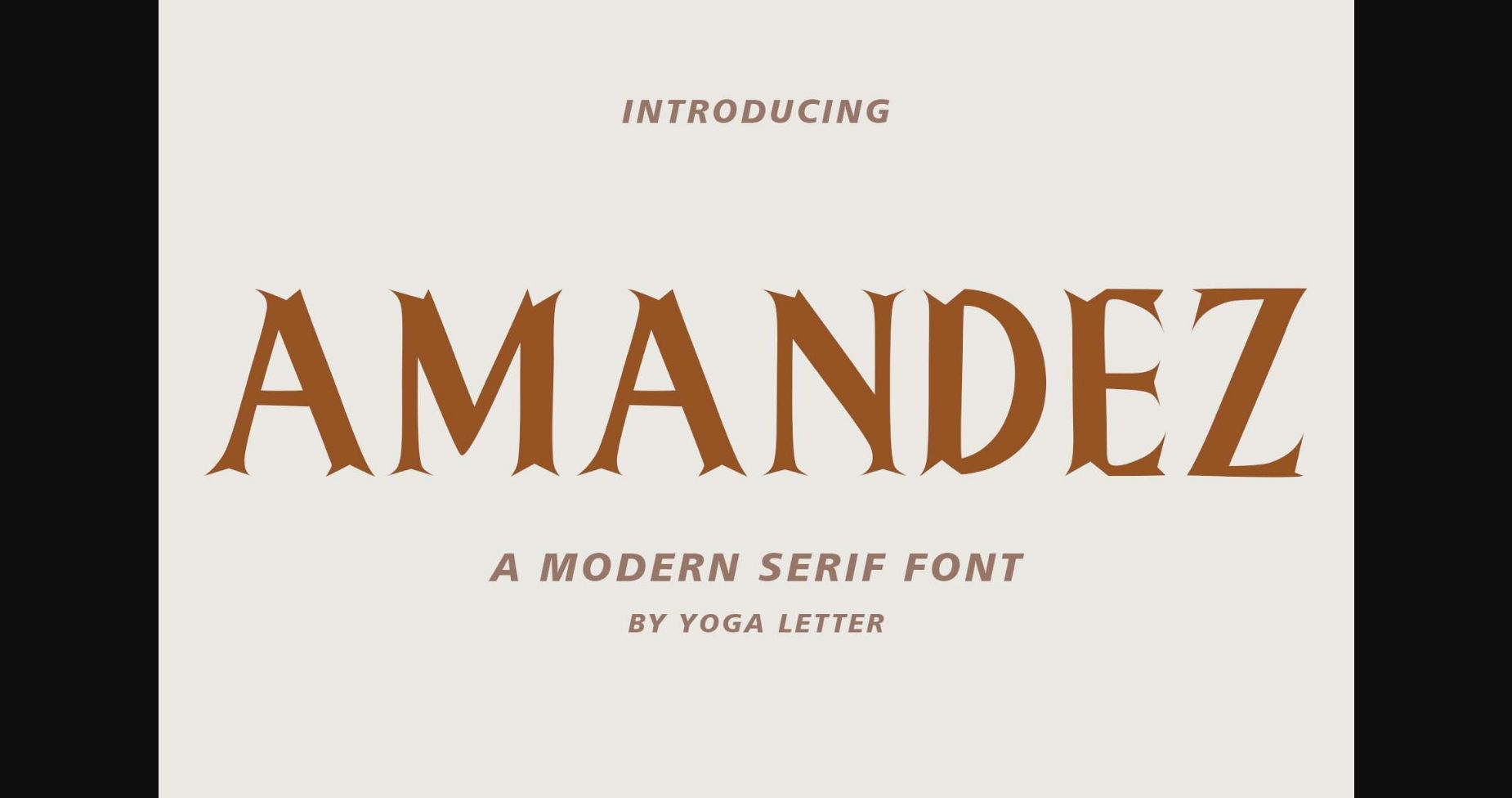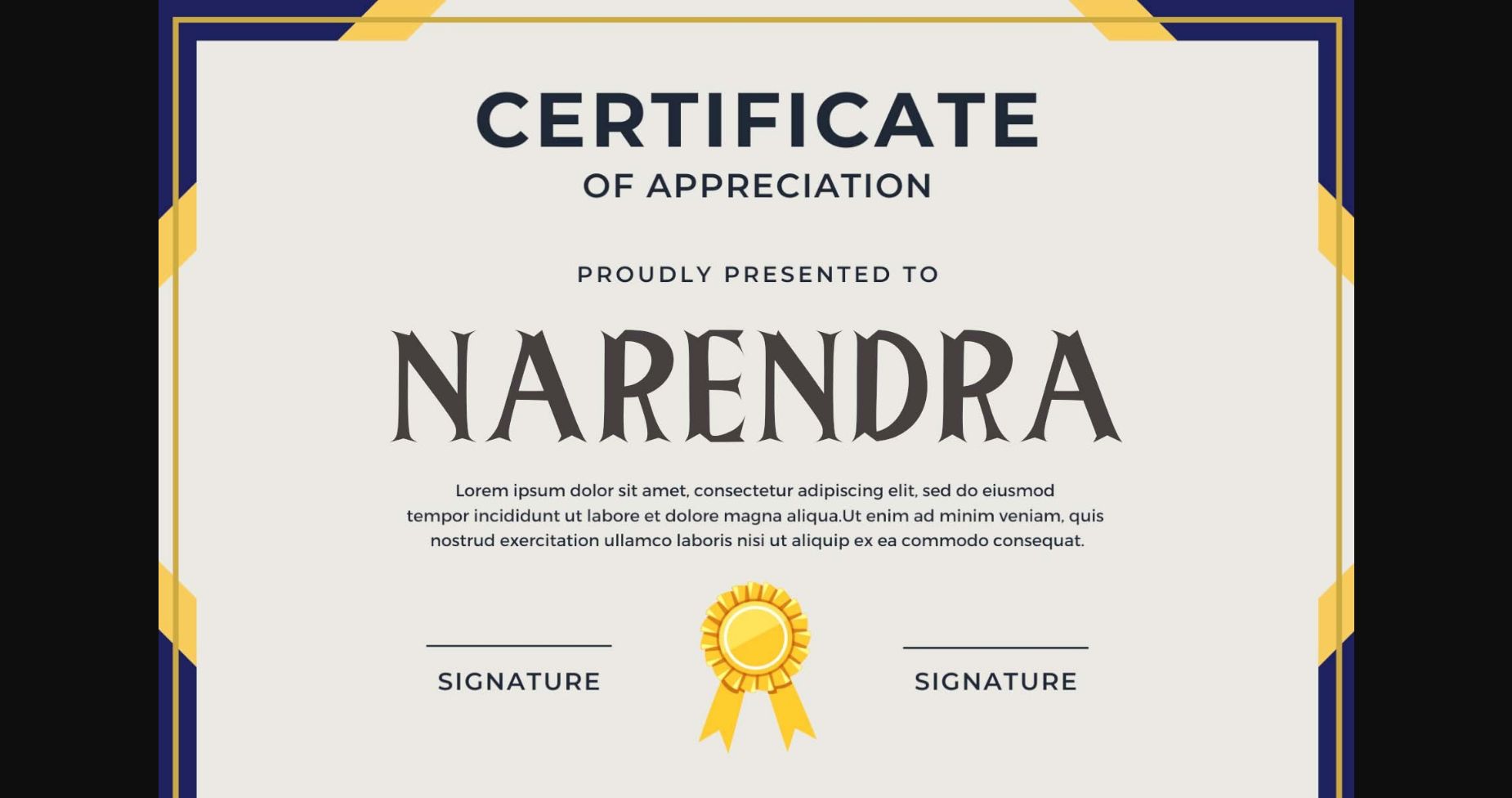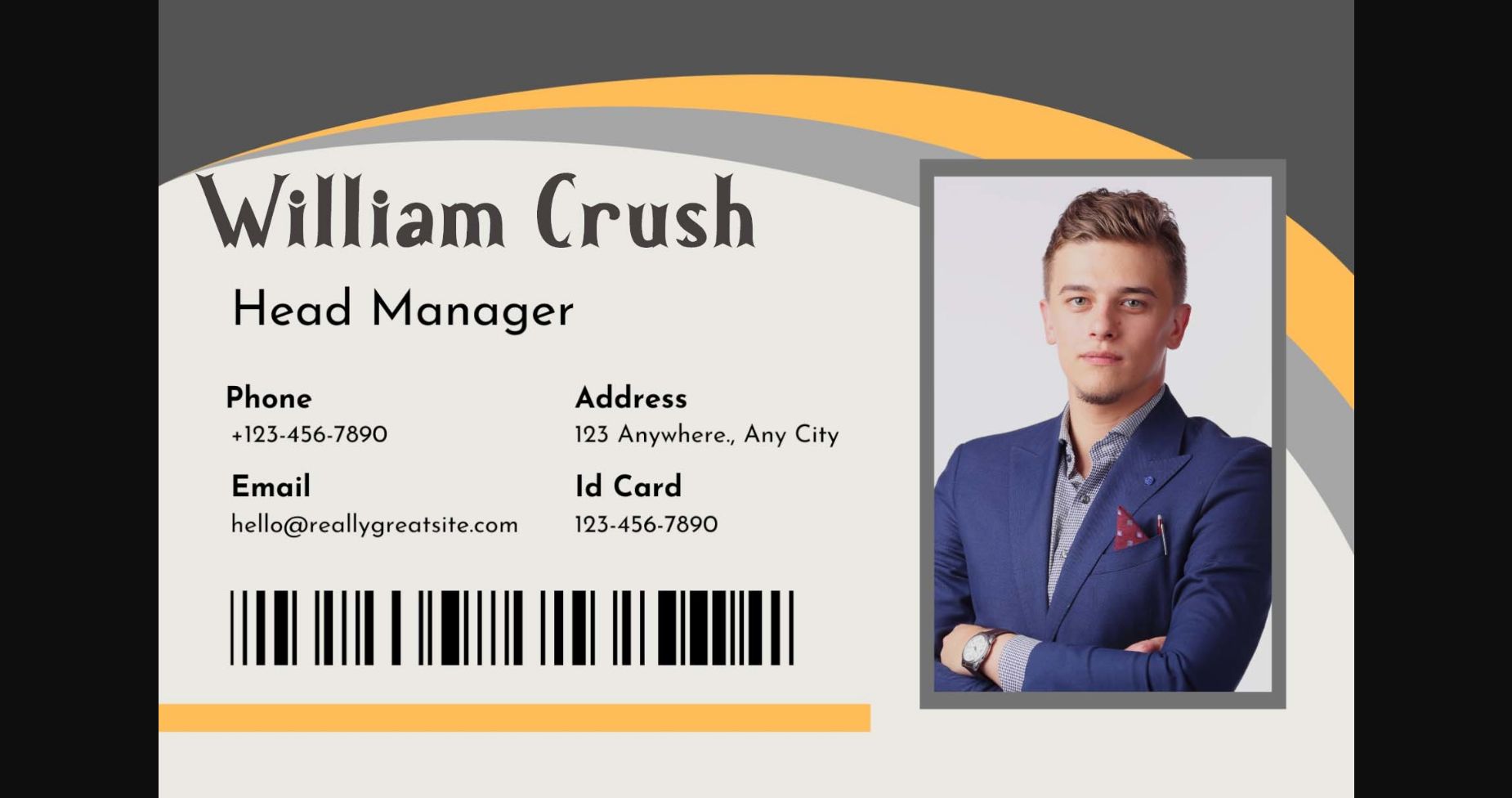
About Amandez Font
Amandez is a modern and exclusive sans-serif font that embodies innovation and style. With its unique letterforms and bold strokes, Amandez adds a touch of creativity to any design project. Whether you’re designing branding, editorial layouts, or social media graphics, Exclusa is the perfect choice for those who want to create a distinctive and modern look.